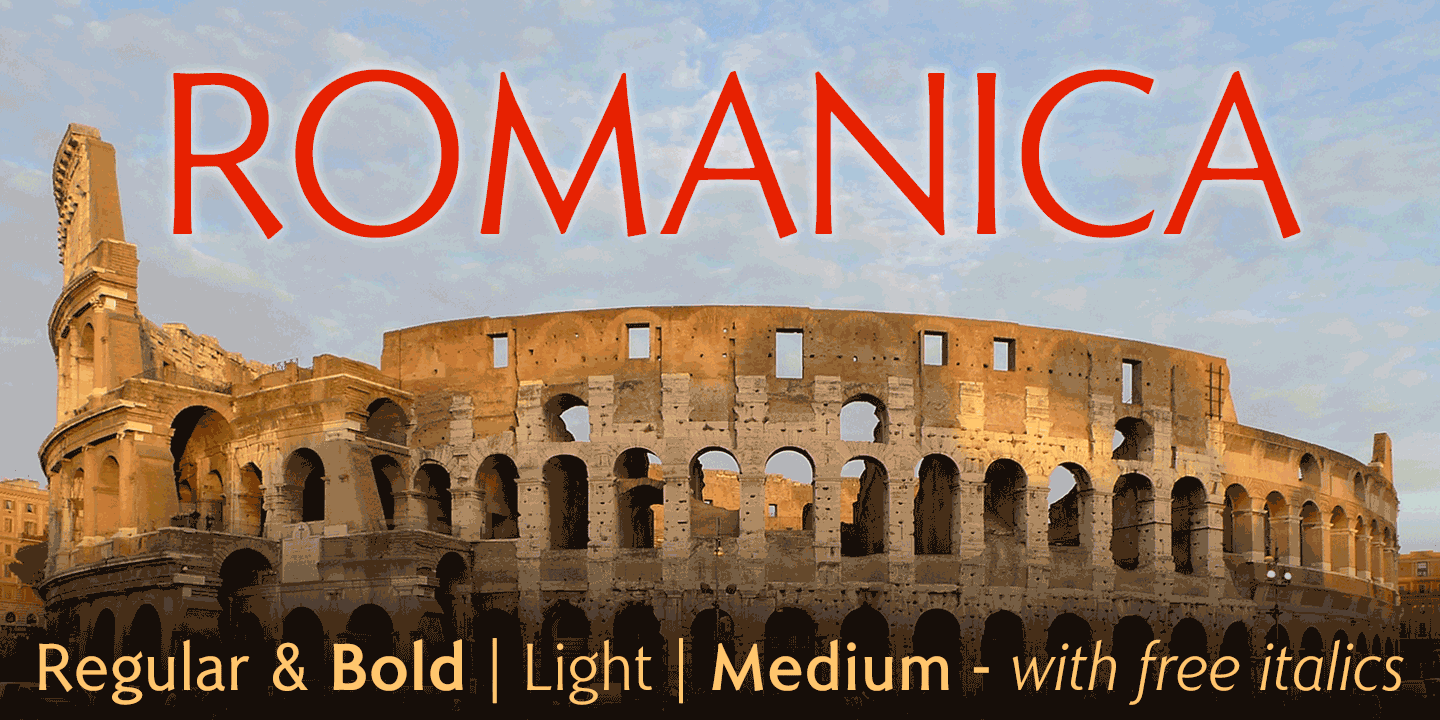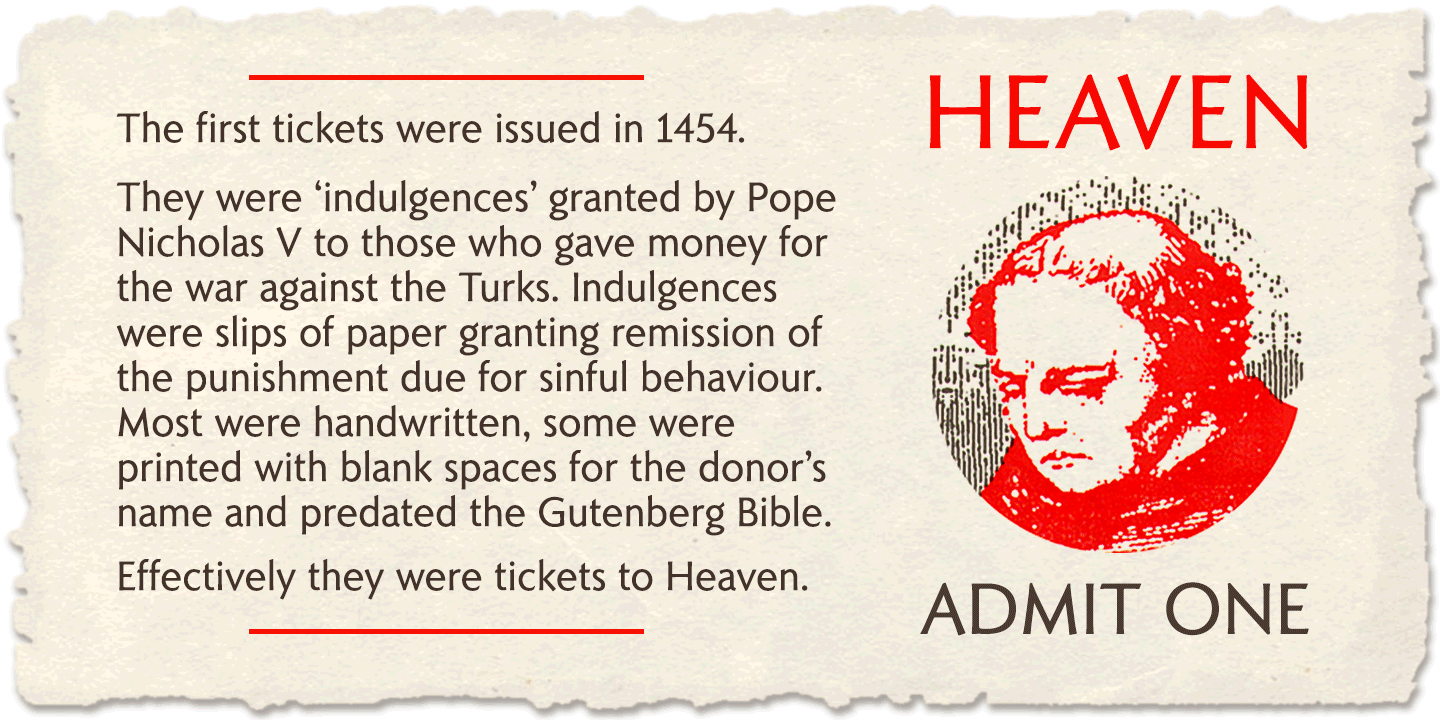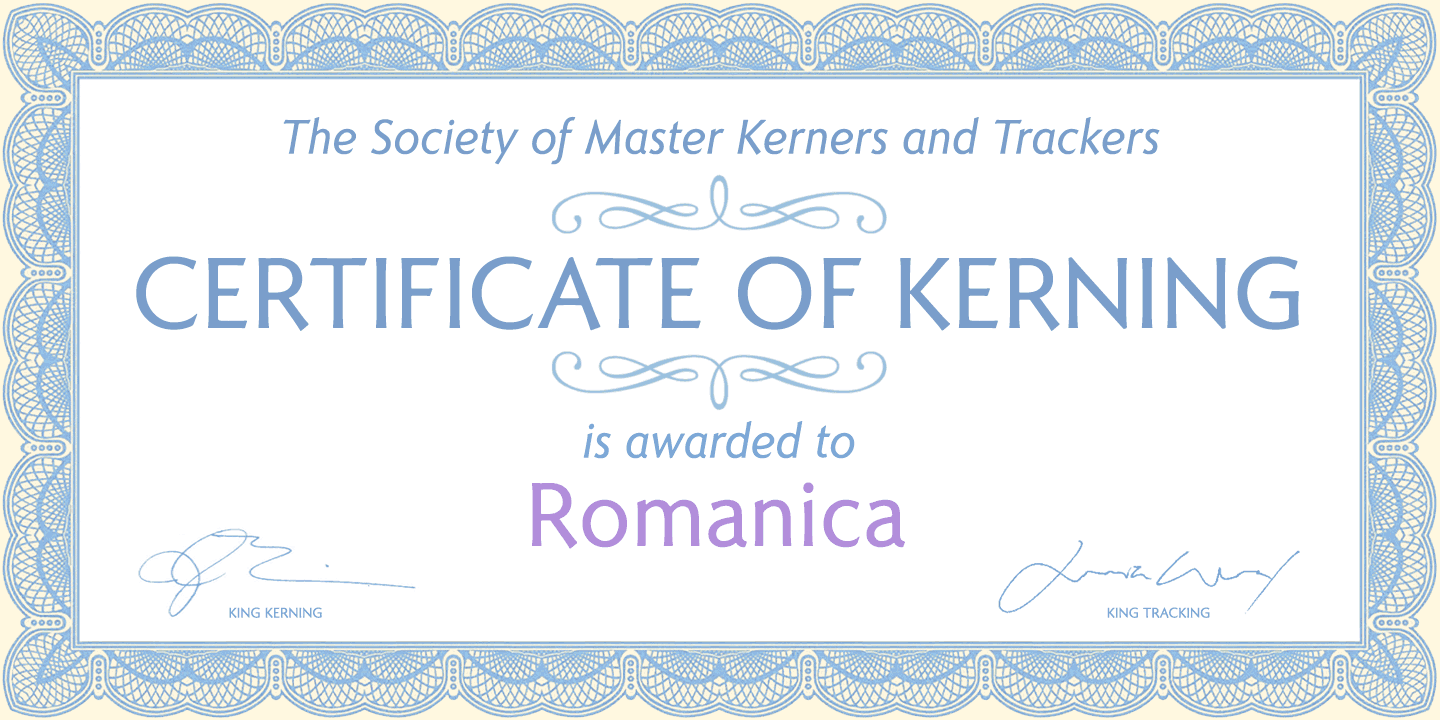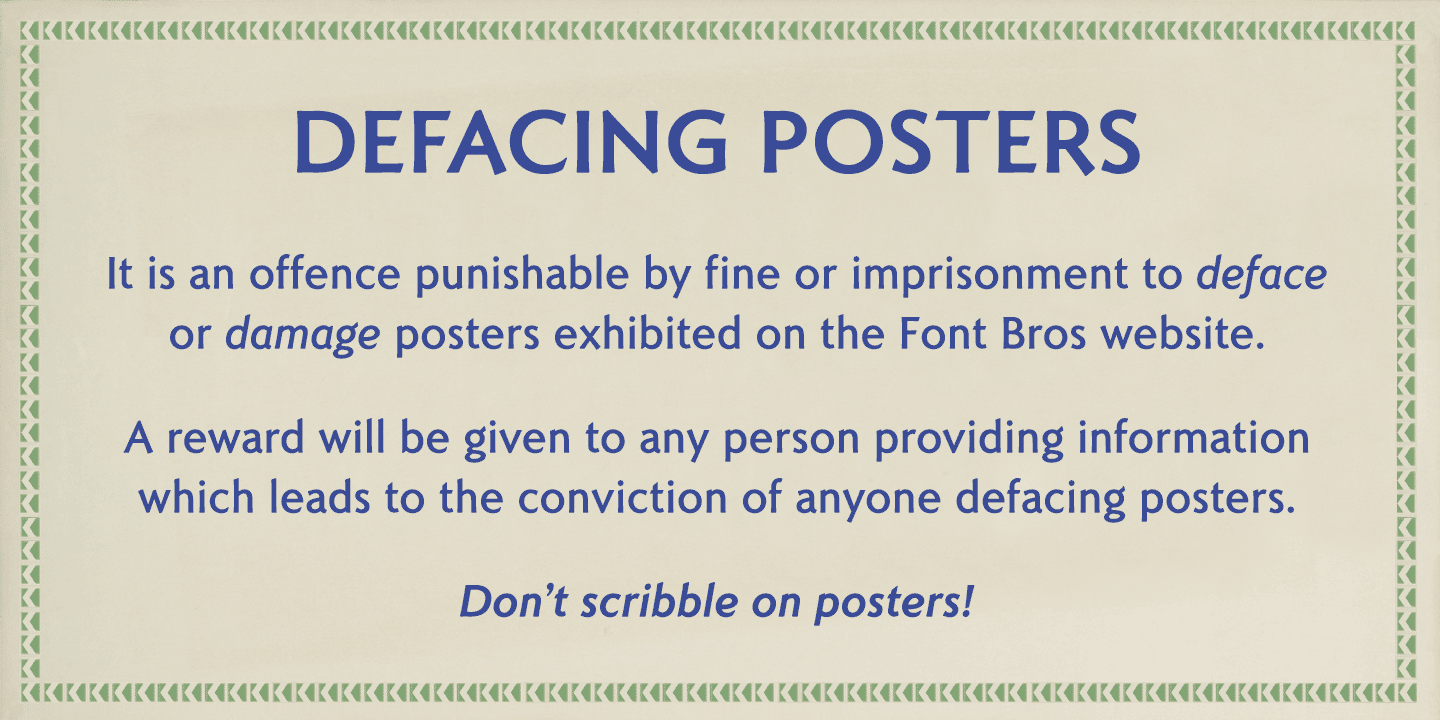
About Romanica
Romanica is a relaxed humanist sans with subtly curved corners and slightly flared glyphic terminals that are expressively angled where appropriate. Romanica has the authority of the ages without the harshness of many classically inspired typefaces.…